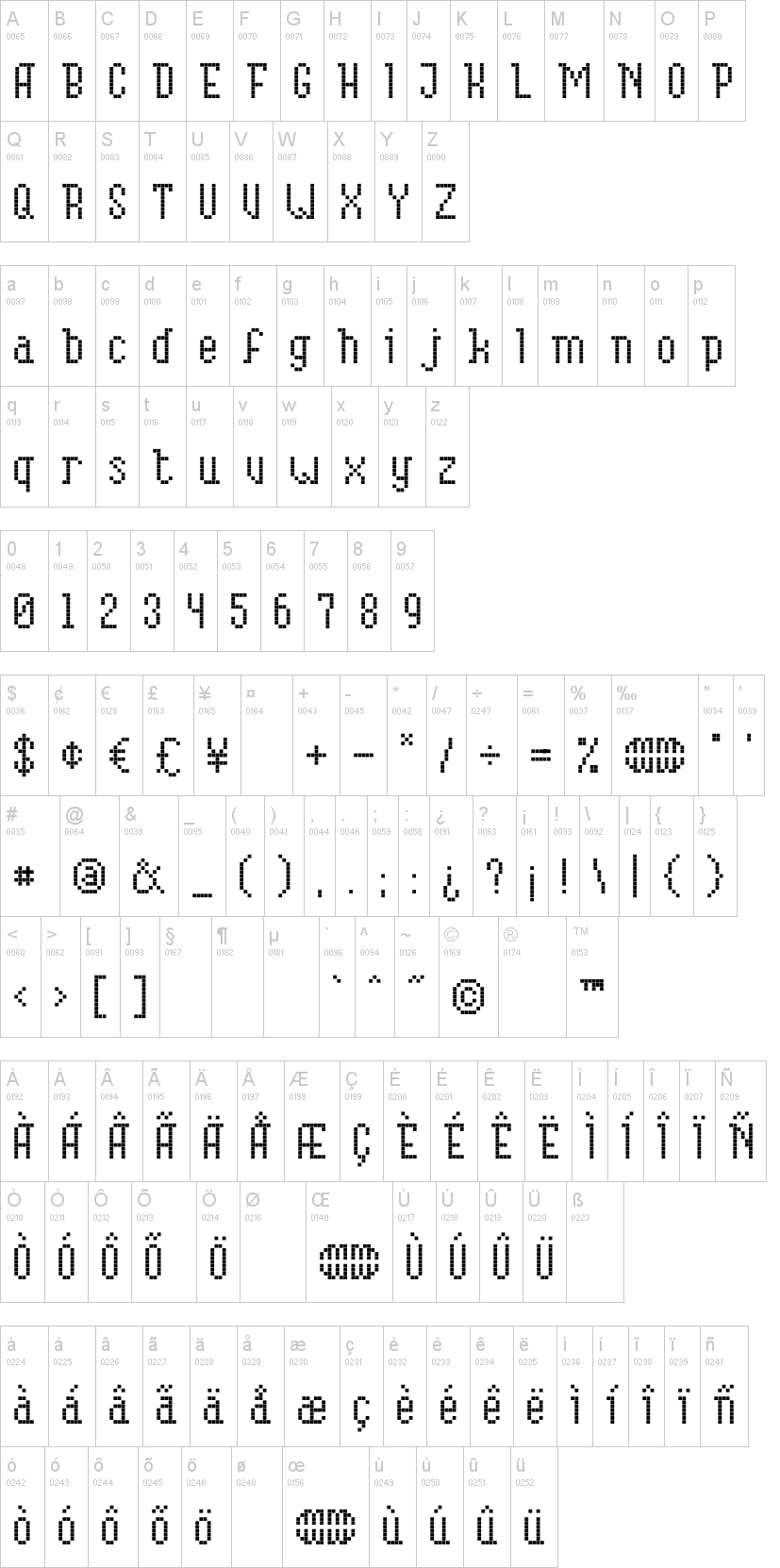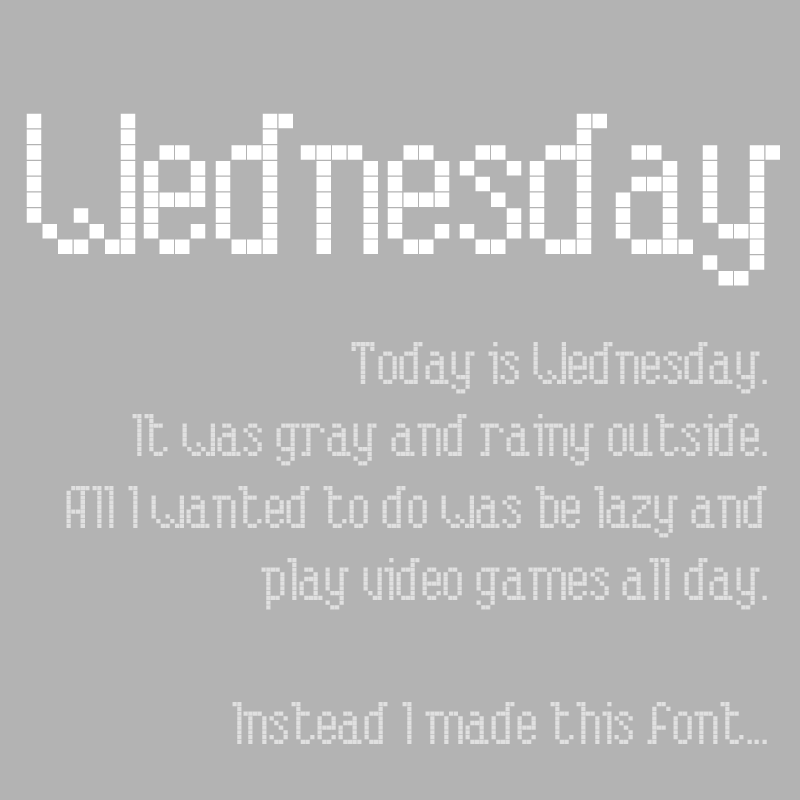
Last night I started working on a pixel font. Lately I have been feeling very unmotivated. Today I woke up and it was raining outside. I wanted to sleep until a ridiculous hour and then get up and play old video games. That did not happen.
This is a classy pixel font that has alot of extra characters just in case you need them. It would be easily used for Art, Game Design, Header Titles, Website Embedding, maybe even some Ad Copy. Heck, I'm probably going to use it on my own website. Have fun!